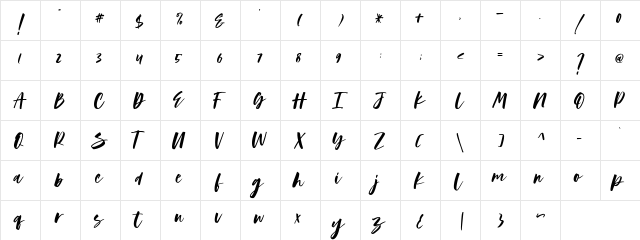
Austine Demo Regular
| Foundry | Megi Satyo Widodo |
| Designer | Megi Satyo Widodo |
Design Context for Austine Demo Typeface
Austine Demo is a composed and adaptable typeface that performs quietly and consistently across a wide range of design contexts.